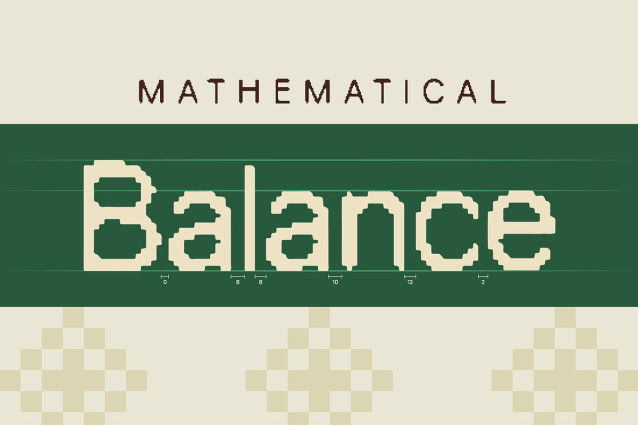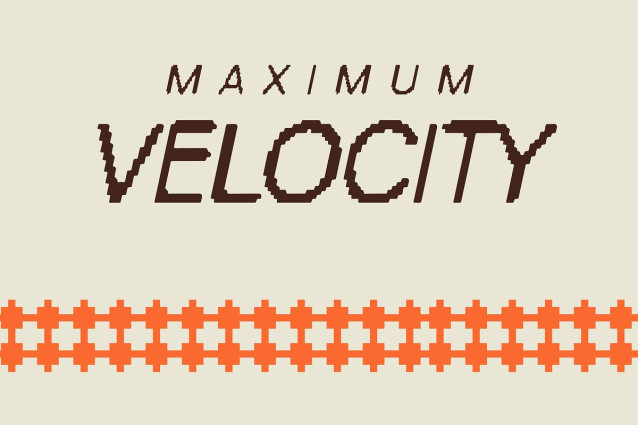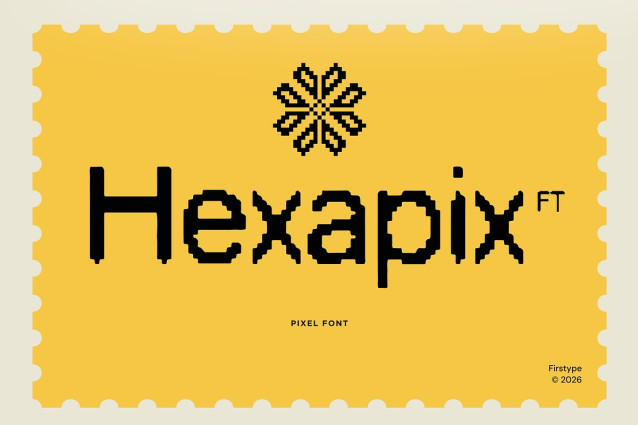
FT Hexapix Font
FT Hexapix Font a modular pixel typeface designed for the modern-day artisan. From building immersive gaming worlds to crafting high-end, minimal editorial layouts, FT Hexapix injects a sense of structural clarity and folk-inspired warmth into every character